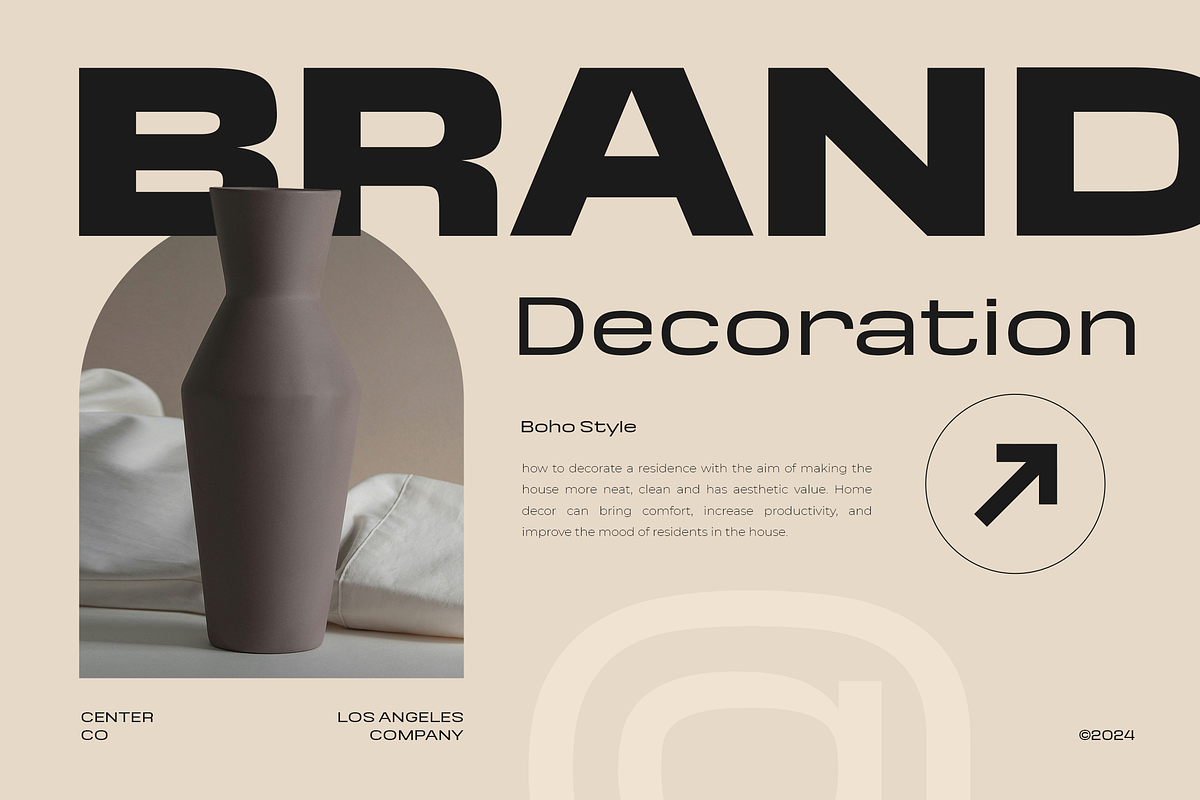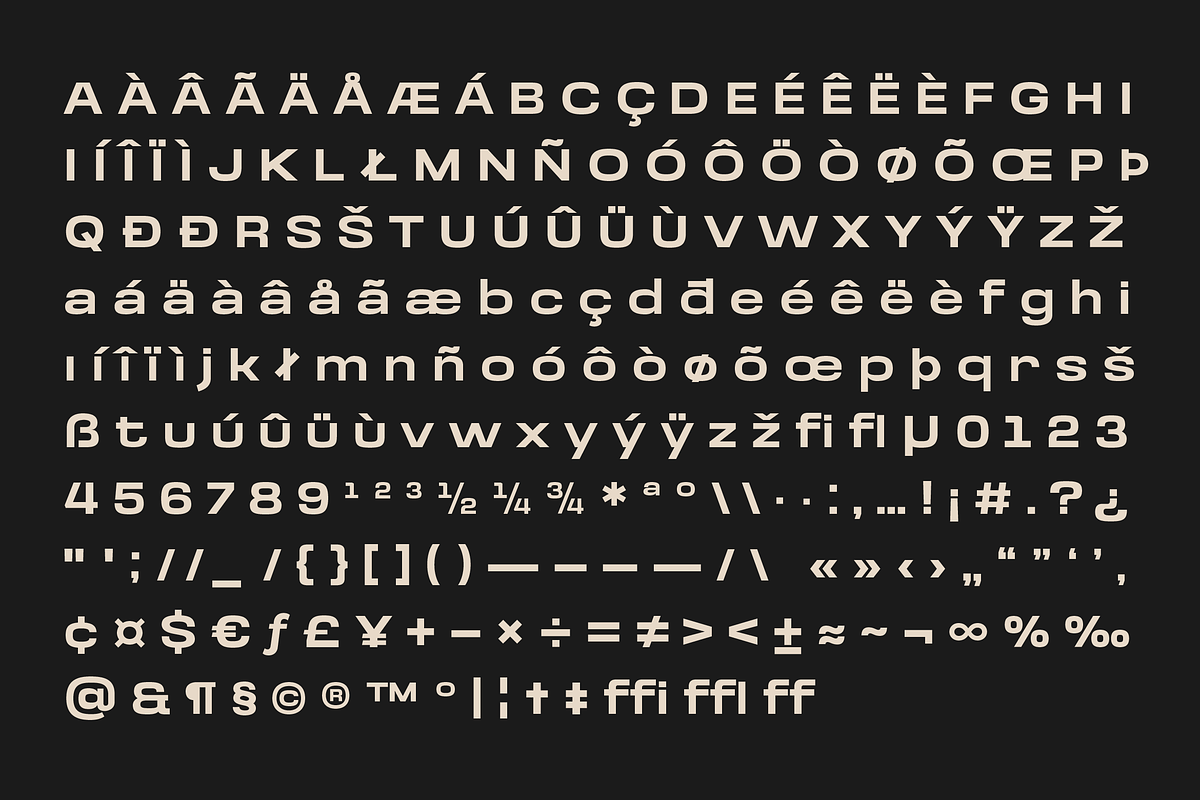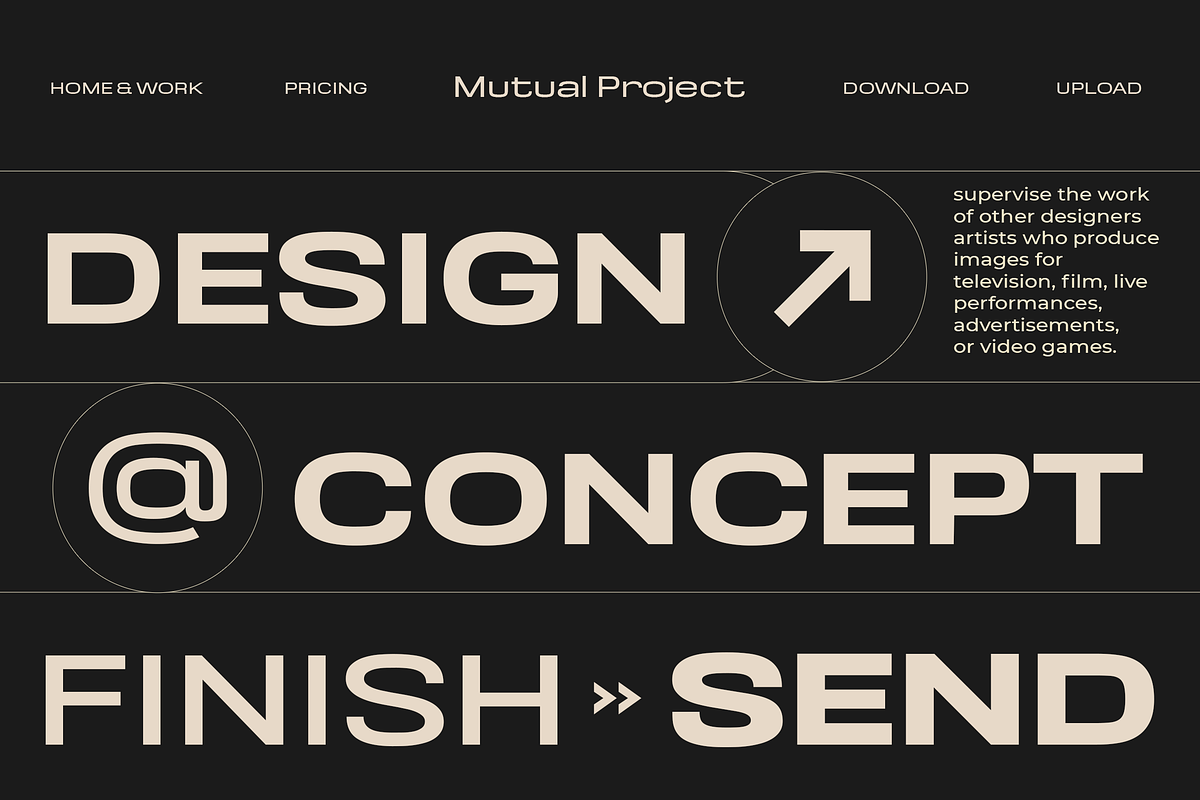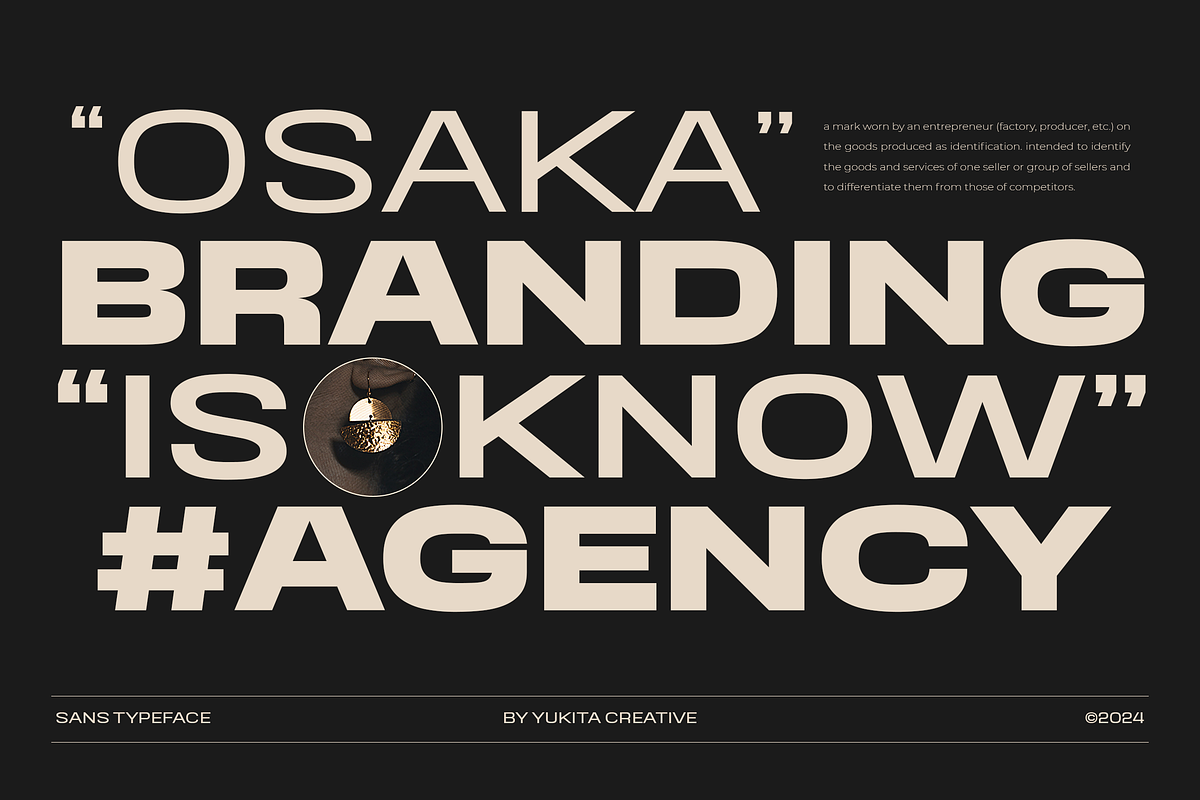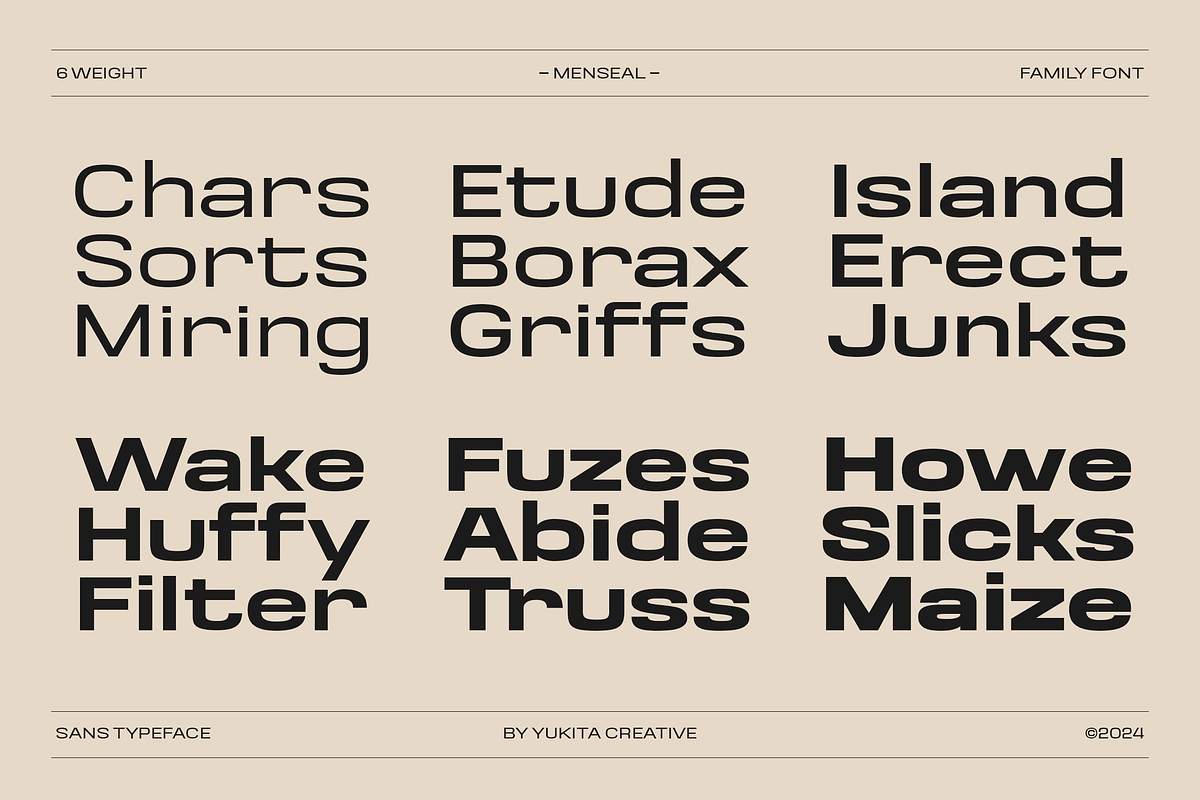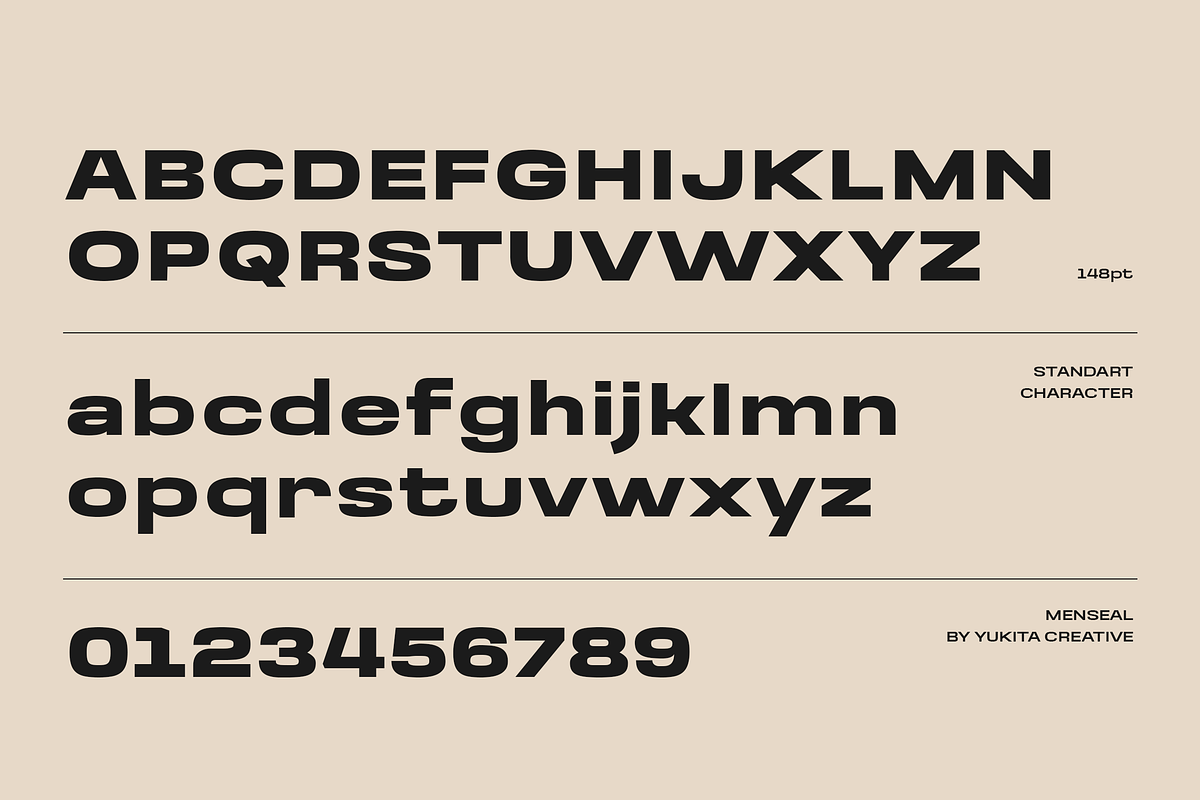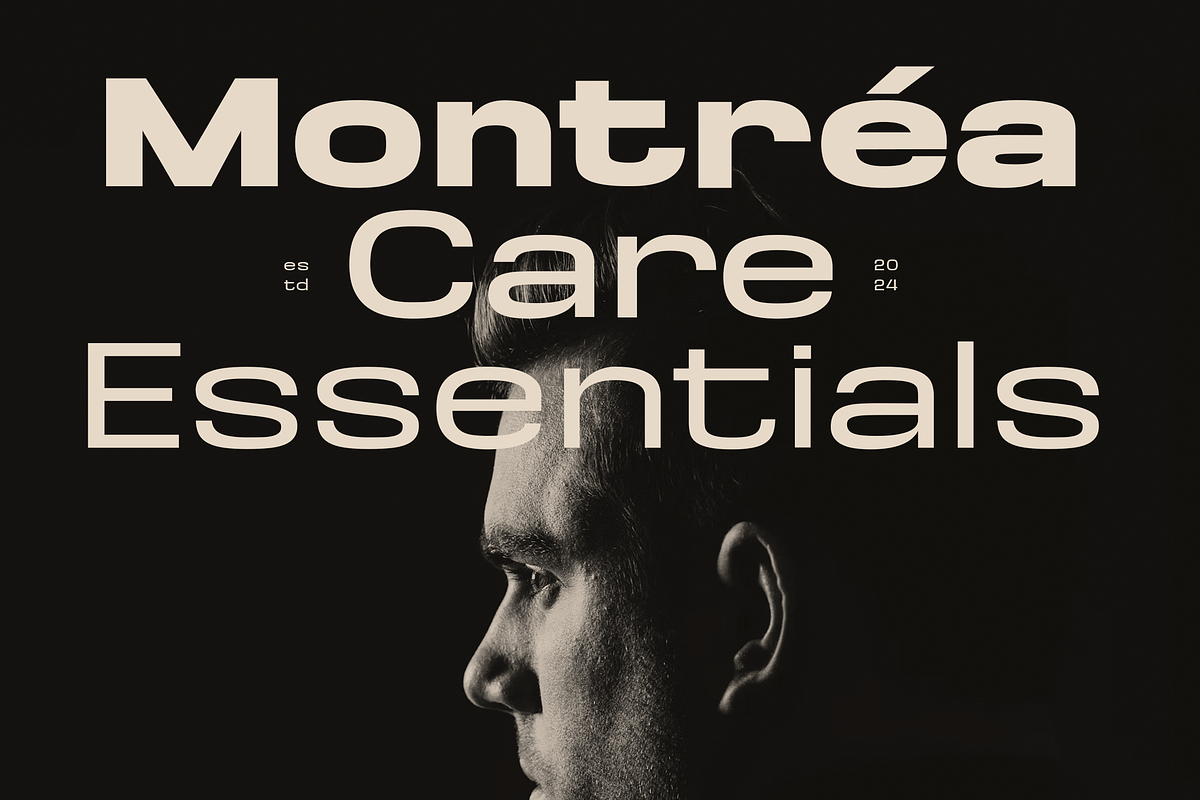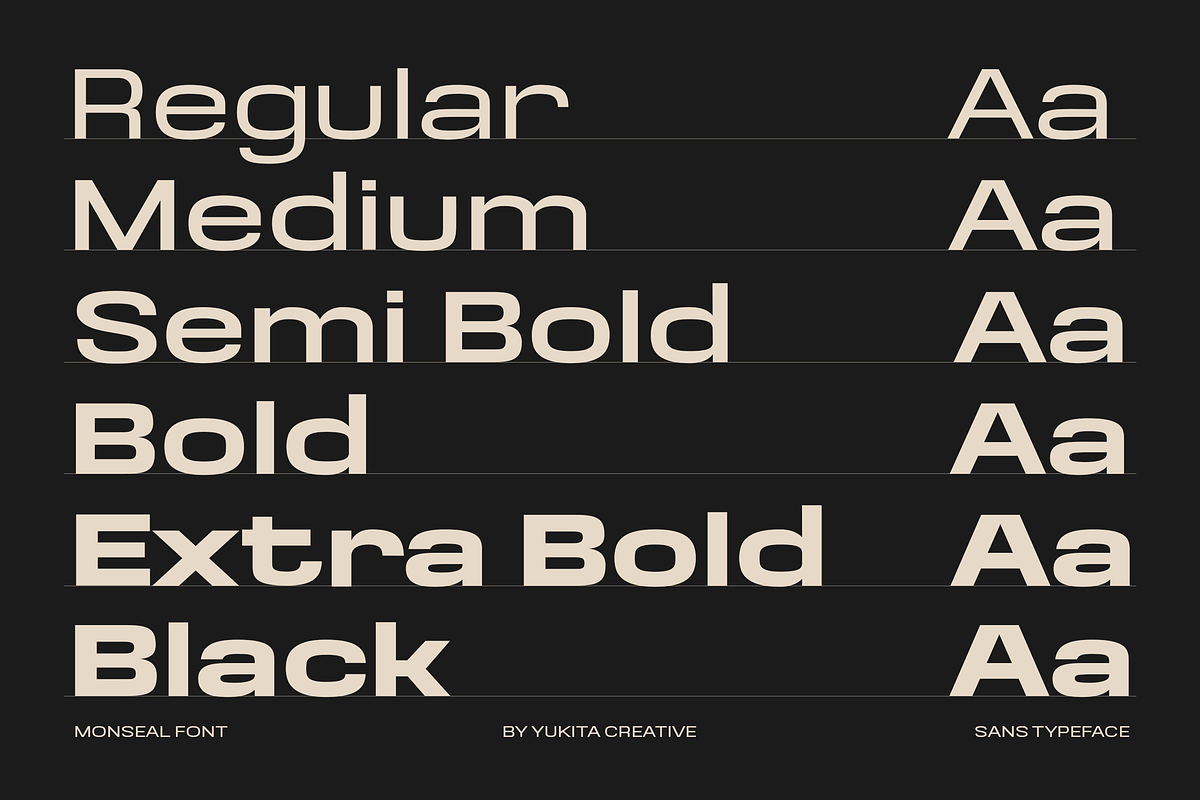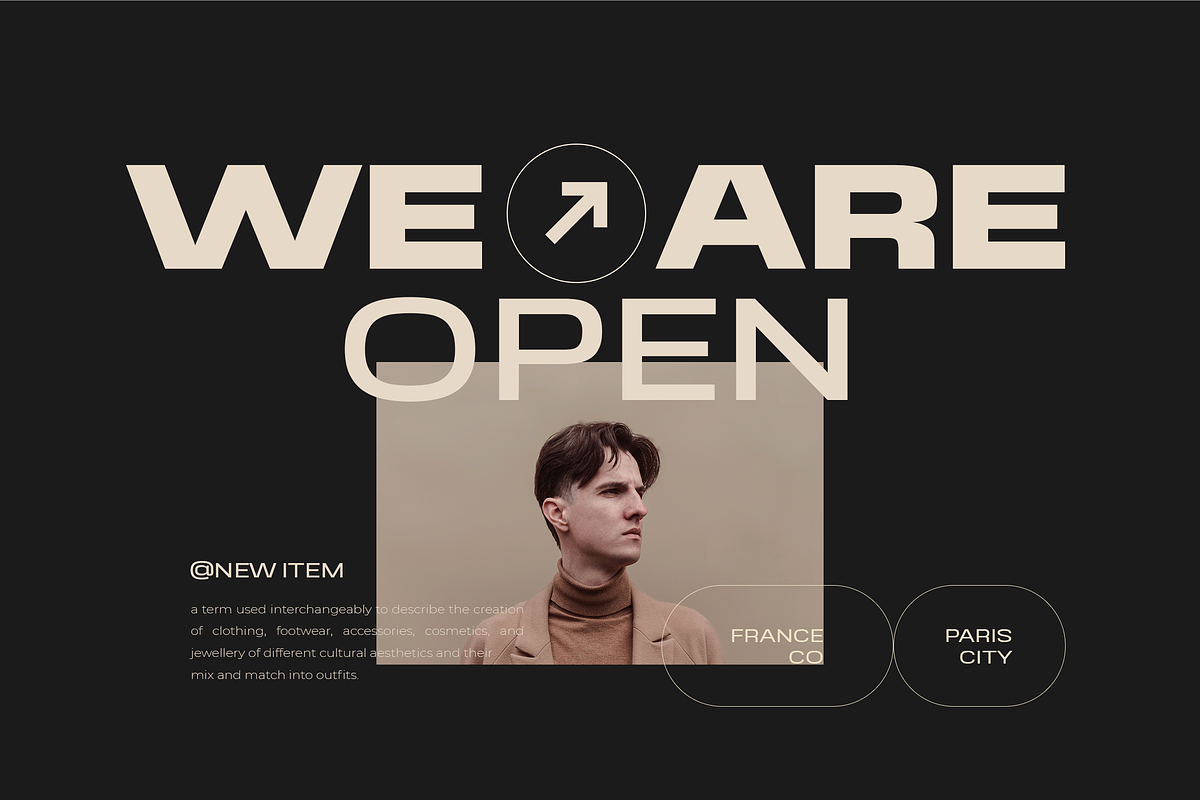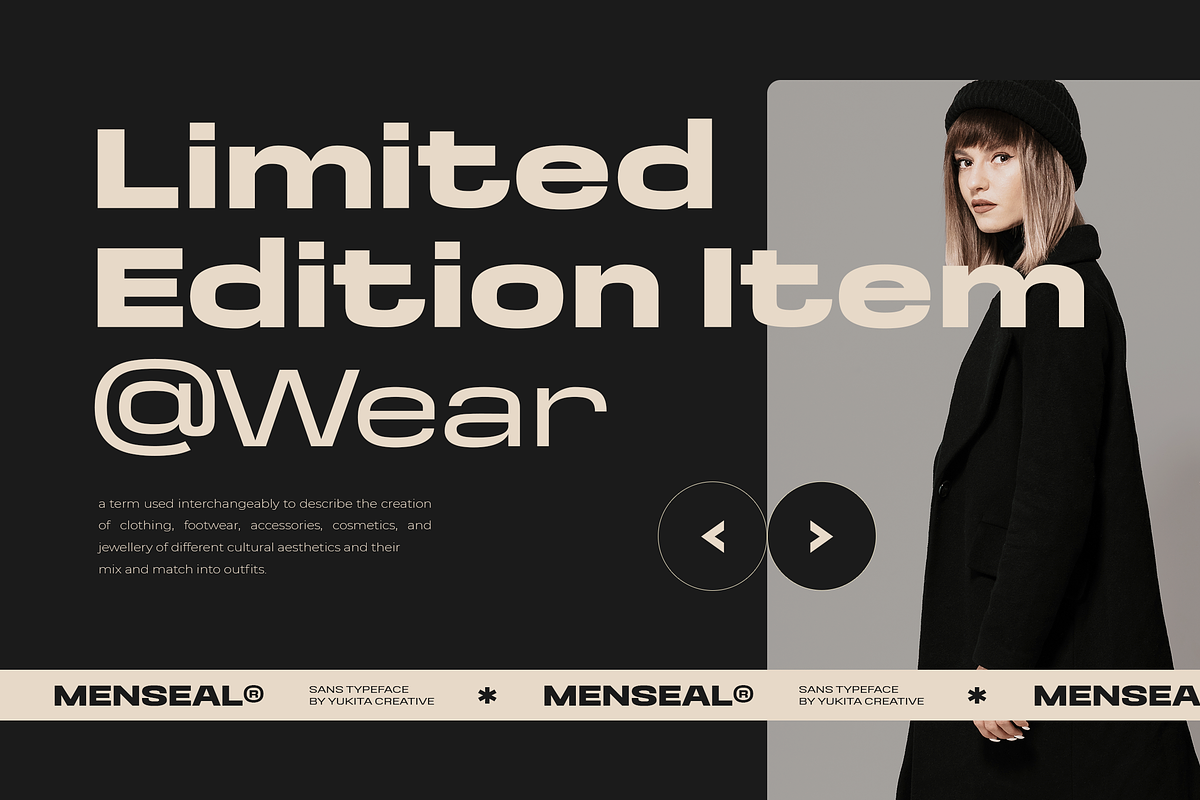
Menseal Family Font
Menseal features a sans-serif design that combines futuristic elements with a semi-square and wide character, creating a bold and modern look, perfect for clothing and sportswear. Its sharp lines and angles provide a strong and precise aesthetic.
Crafted with geometric precision, each letter is in tune with the contemporary era and offers ample space for text placement on both digital and print media.
The use of Menseal in the design adds a modern touch, ideal for fashion brands looking to stand out. Its consistent style ensures clear and effective communication of brand messages to target audiences.